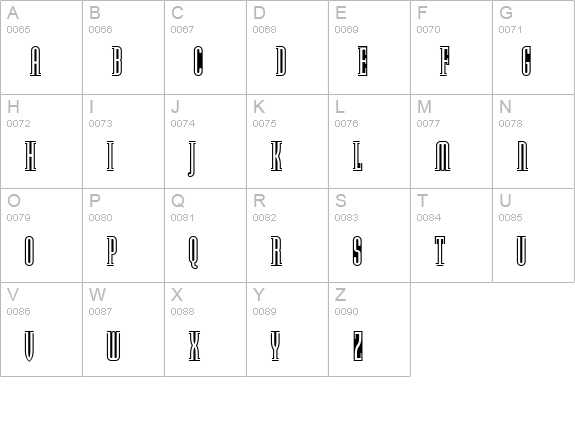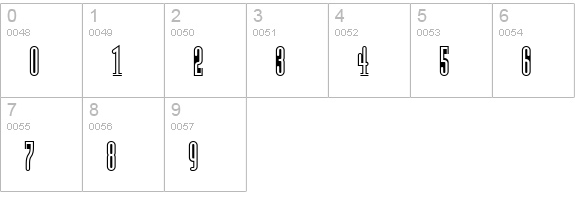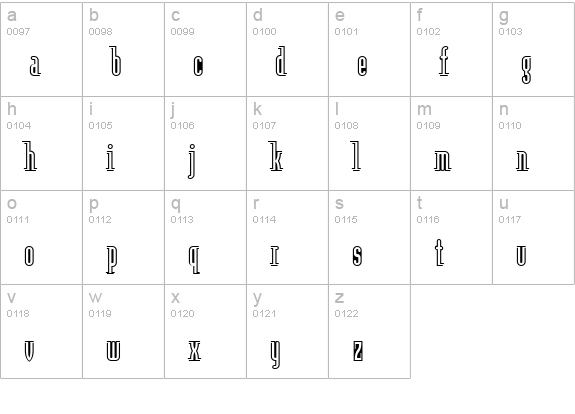
ModulaOutlined Regular is the standard, neutral variant in the ModulaOutlined typeface family \xE2\x80\x94 well suited to general body text, paragraphs, and standard typographic work.
ModulaOutlined Regular font is a stylish and modern typeface that exudes sophistication and elegance. With its clean lines and sleek design, this font is perfect for a wide range of design projects, from branding to editorial to web design. The outlined style adds a unique touch to any text, making it stand out and capture attention. The best part? ModulaOutlined Regular font is available for free download at FontsMarket.com. Whether you're a designer looking to add a fresh new font to your collection or a business owner in need of a professional typeface for your marketing materials, this font has got you covered. Download it today and elevate your designs with this versatile and eye-catching font.